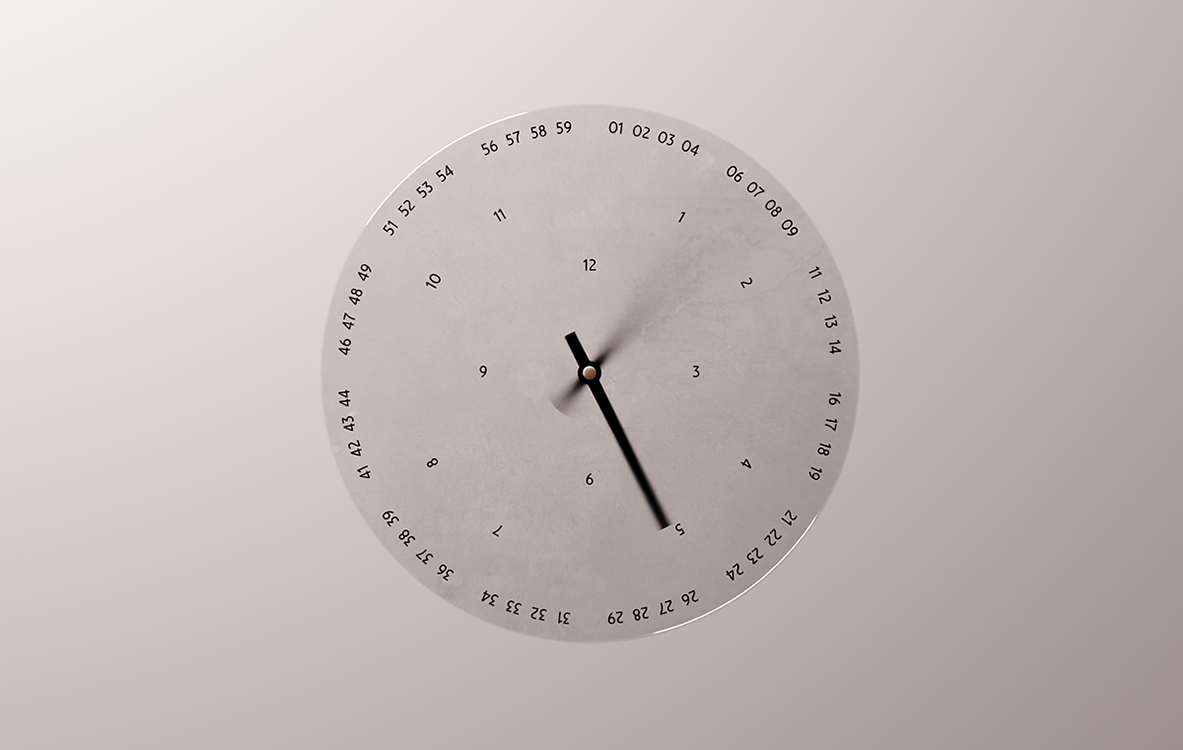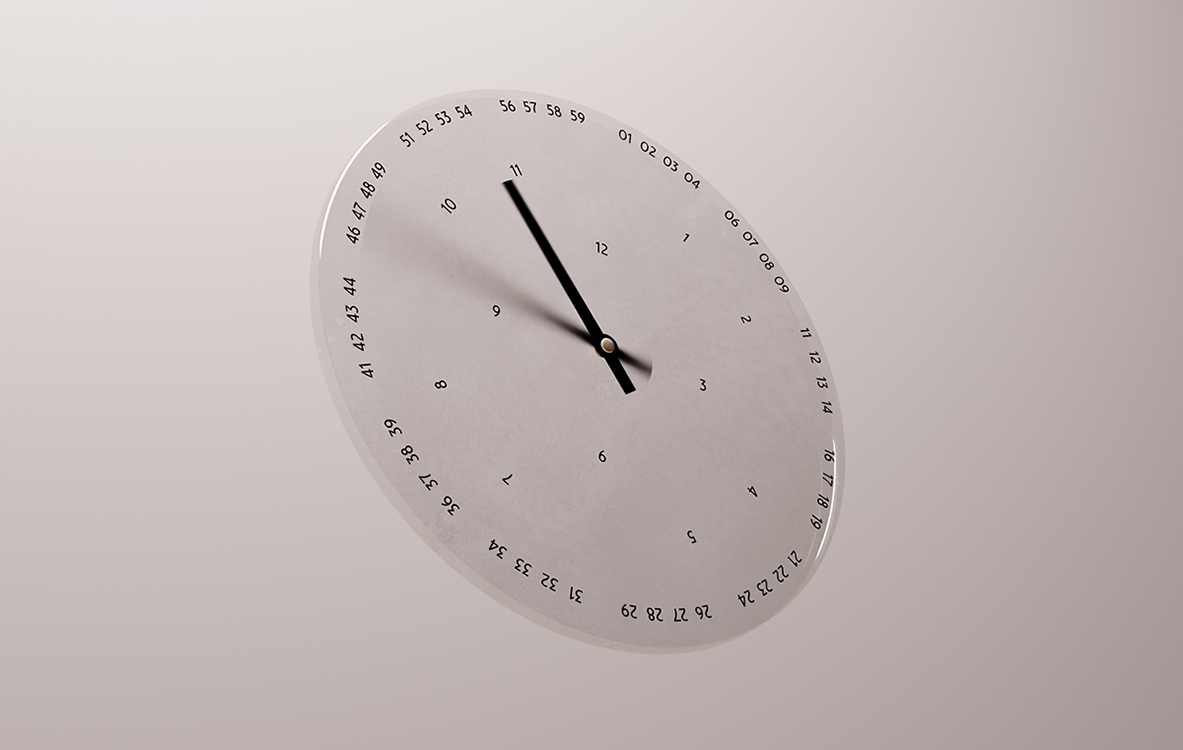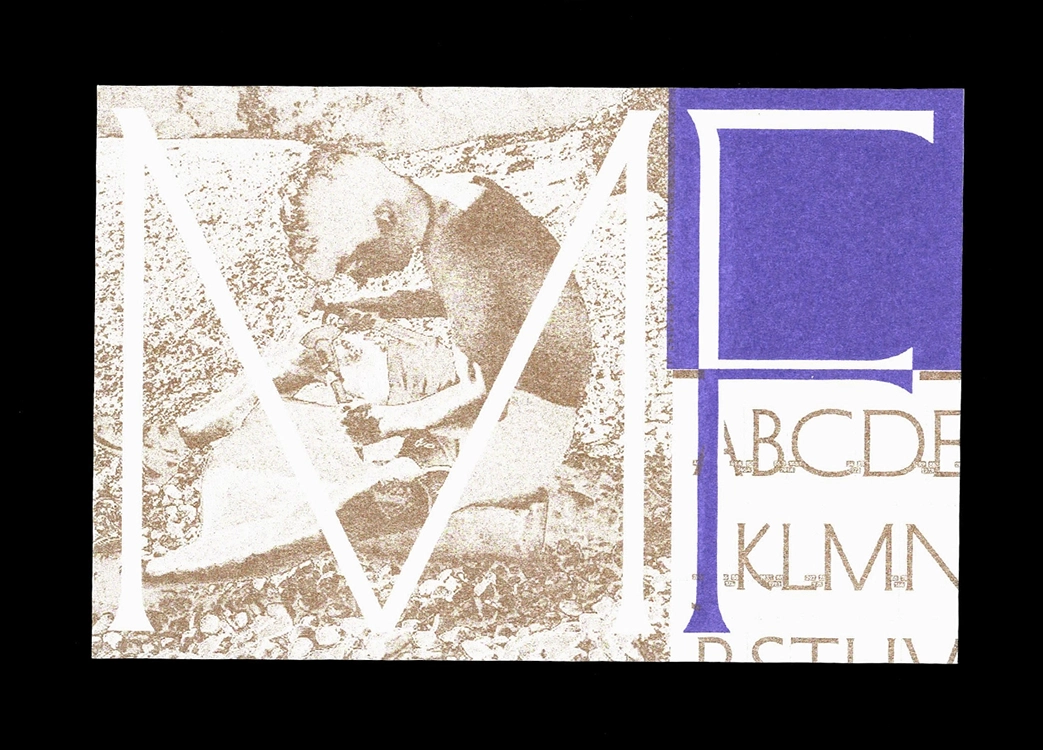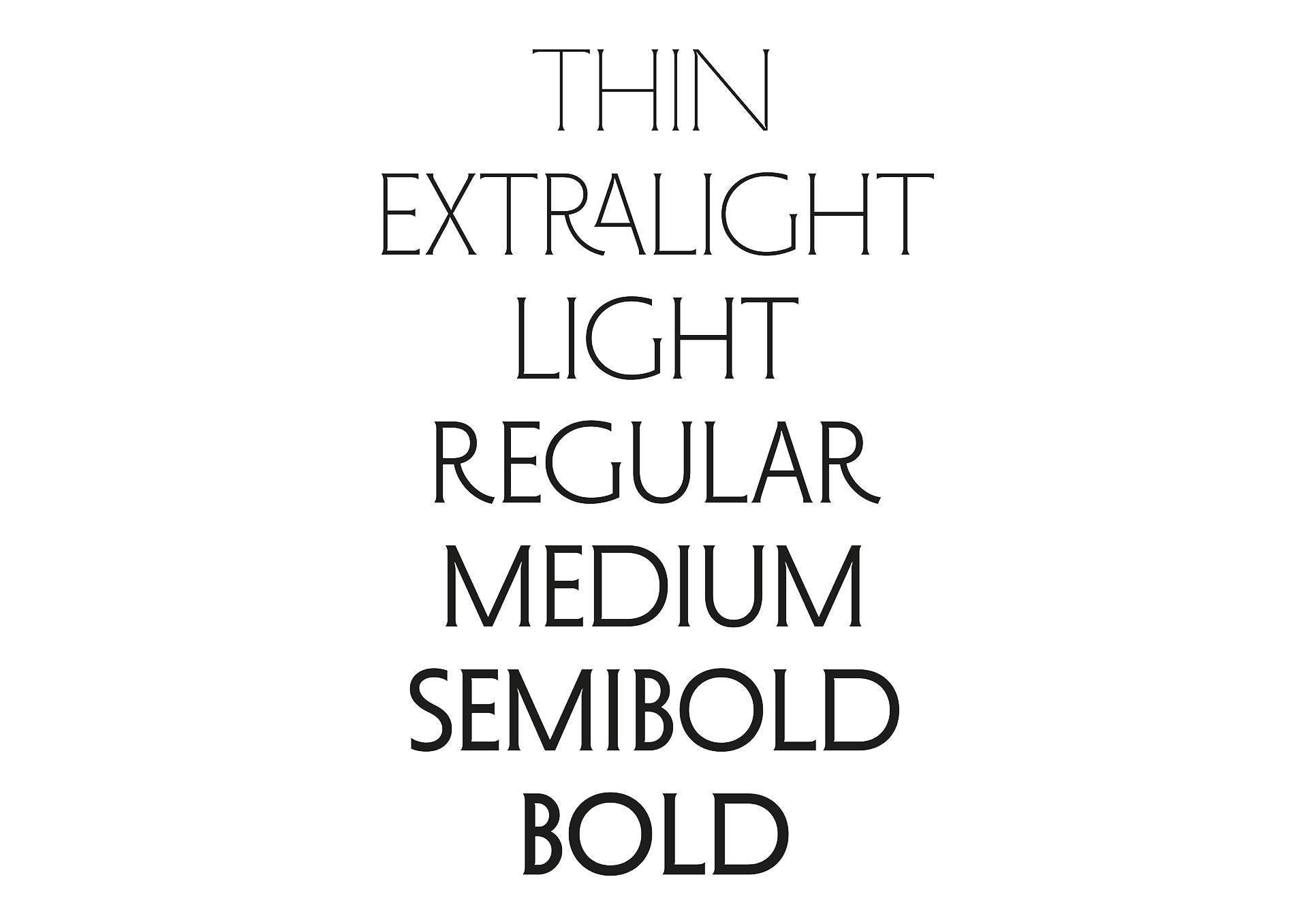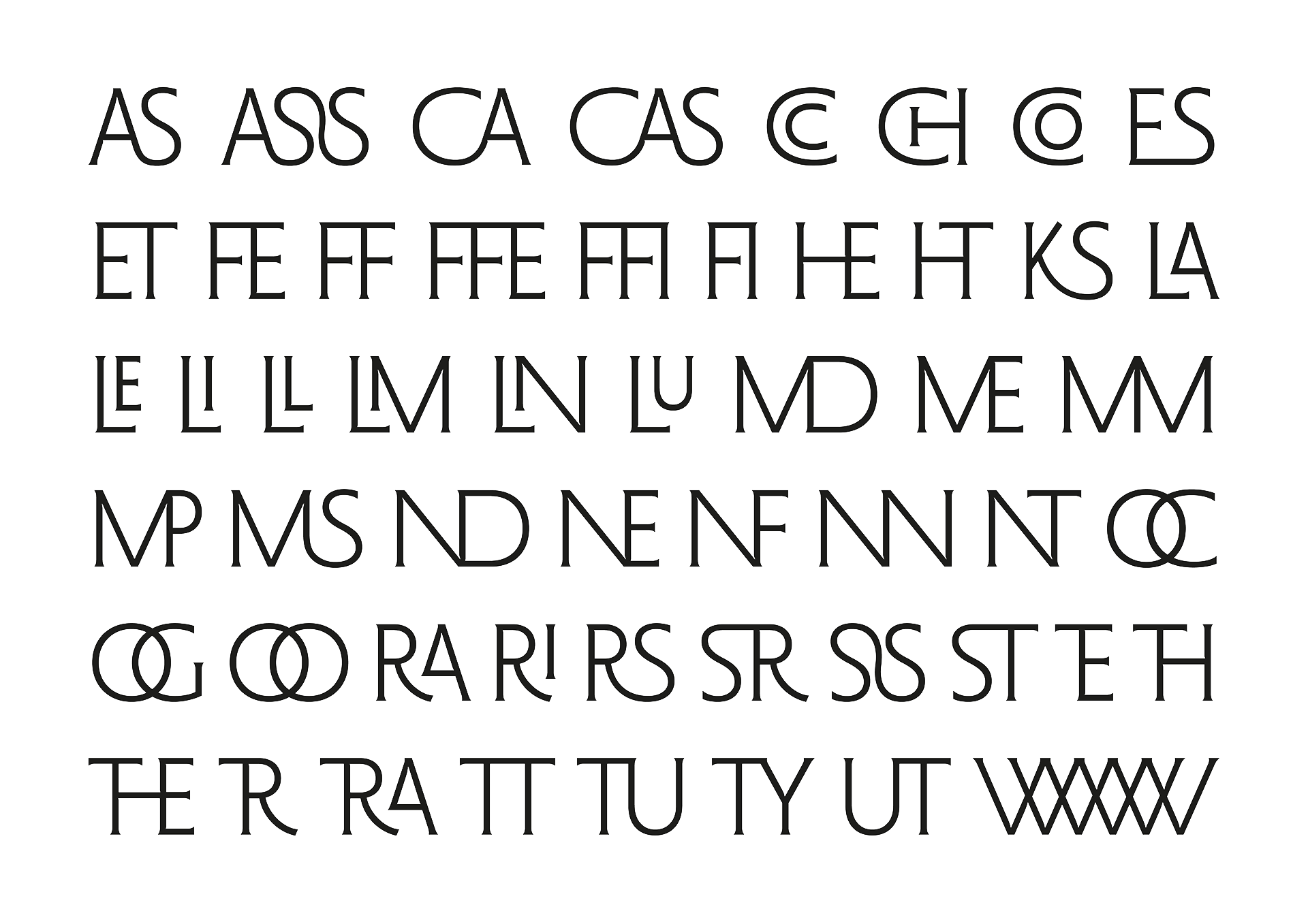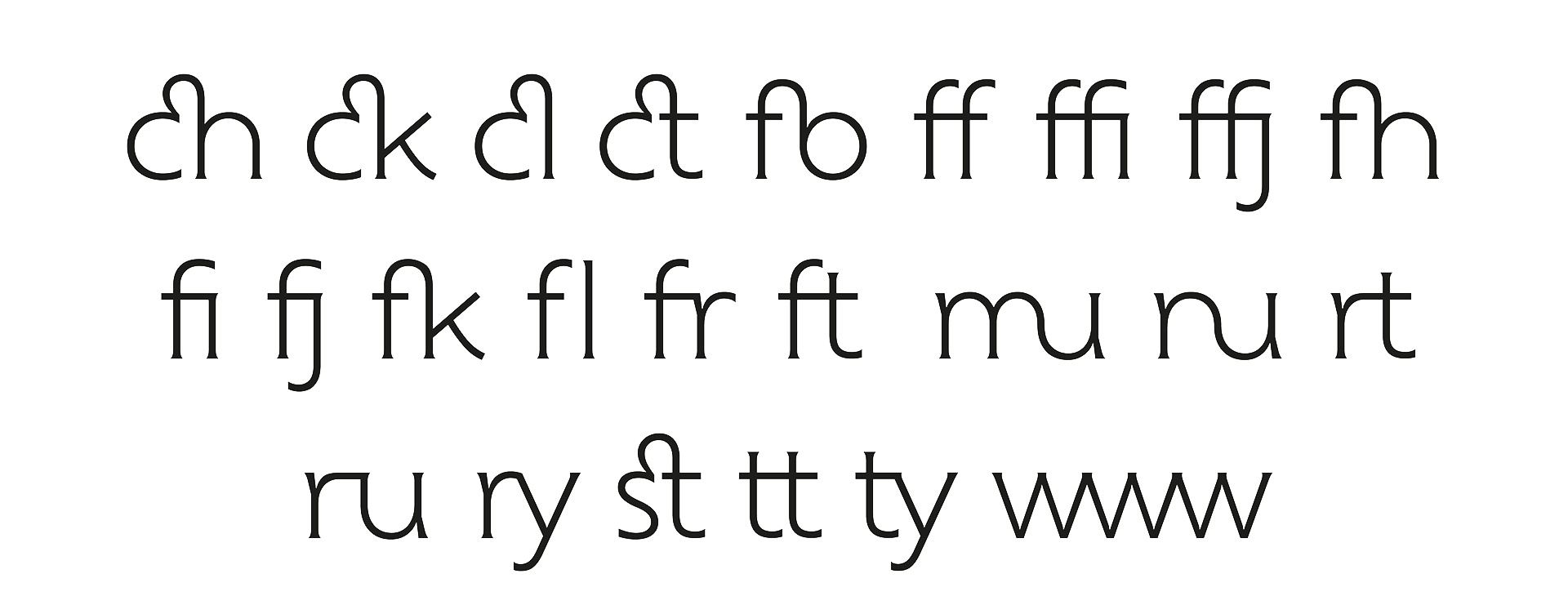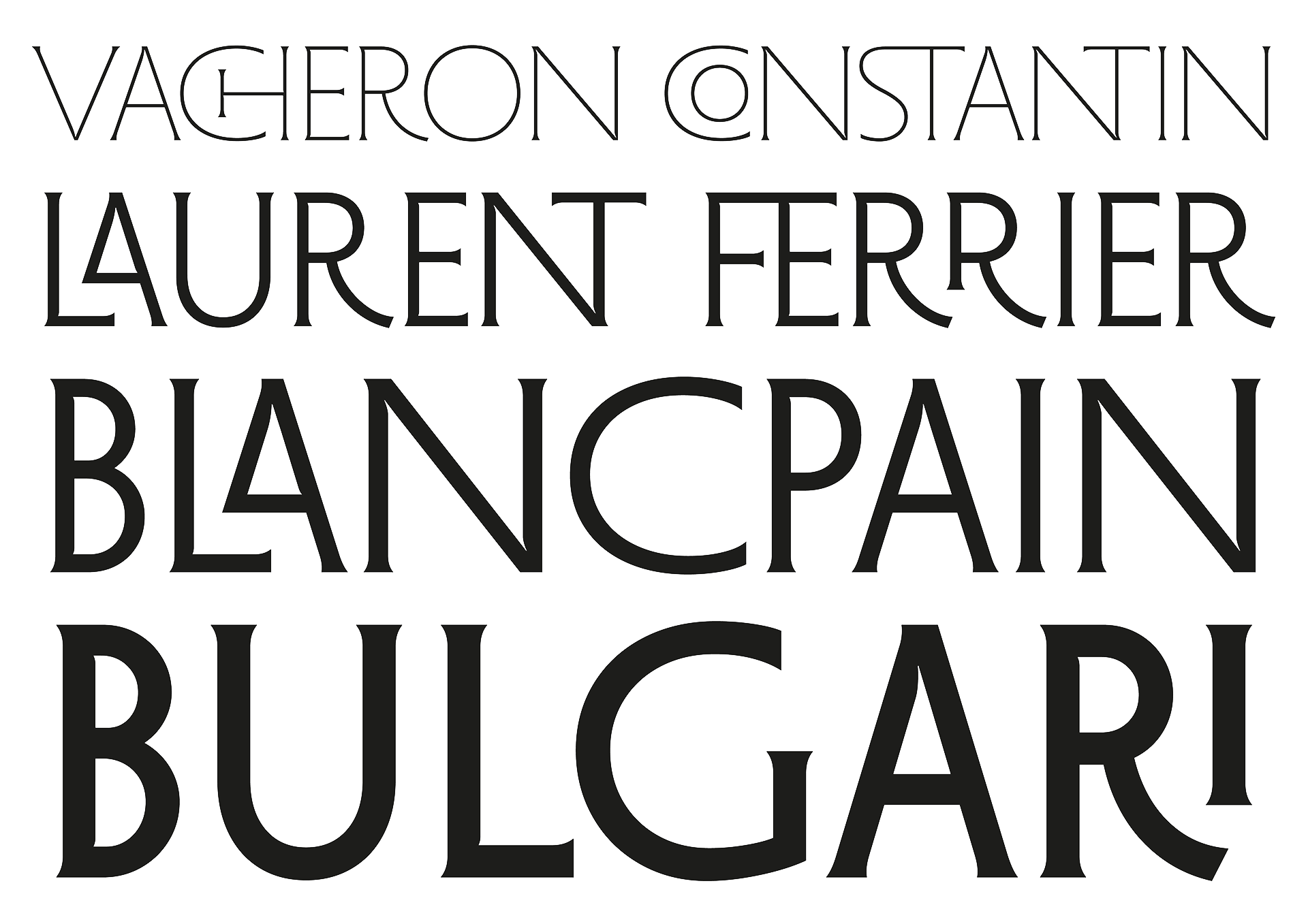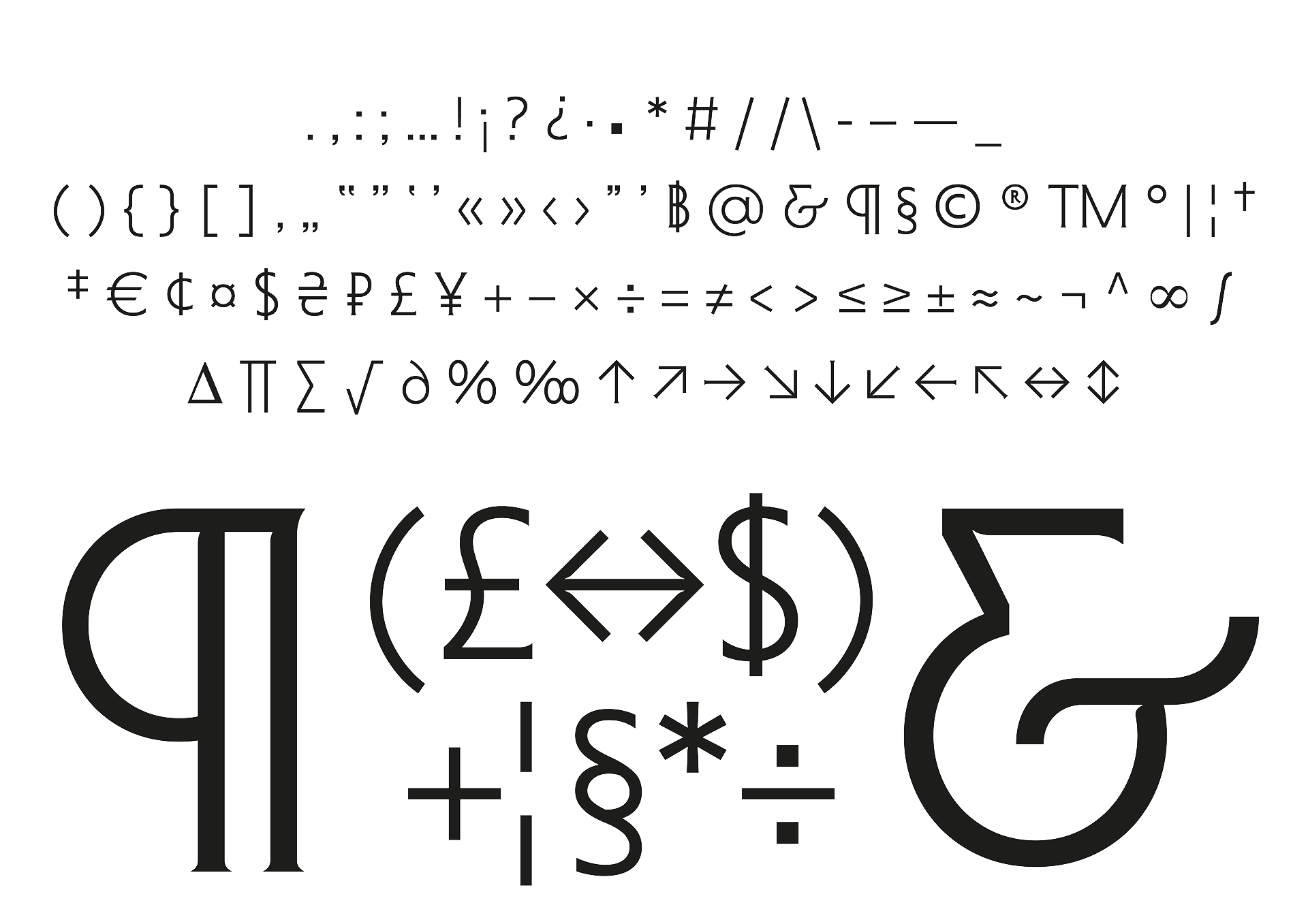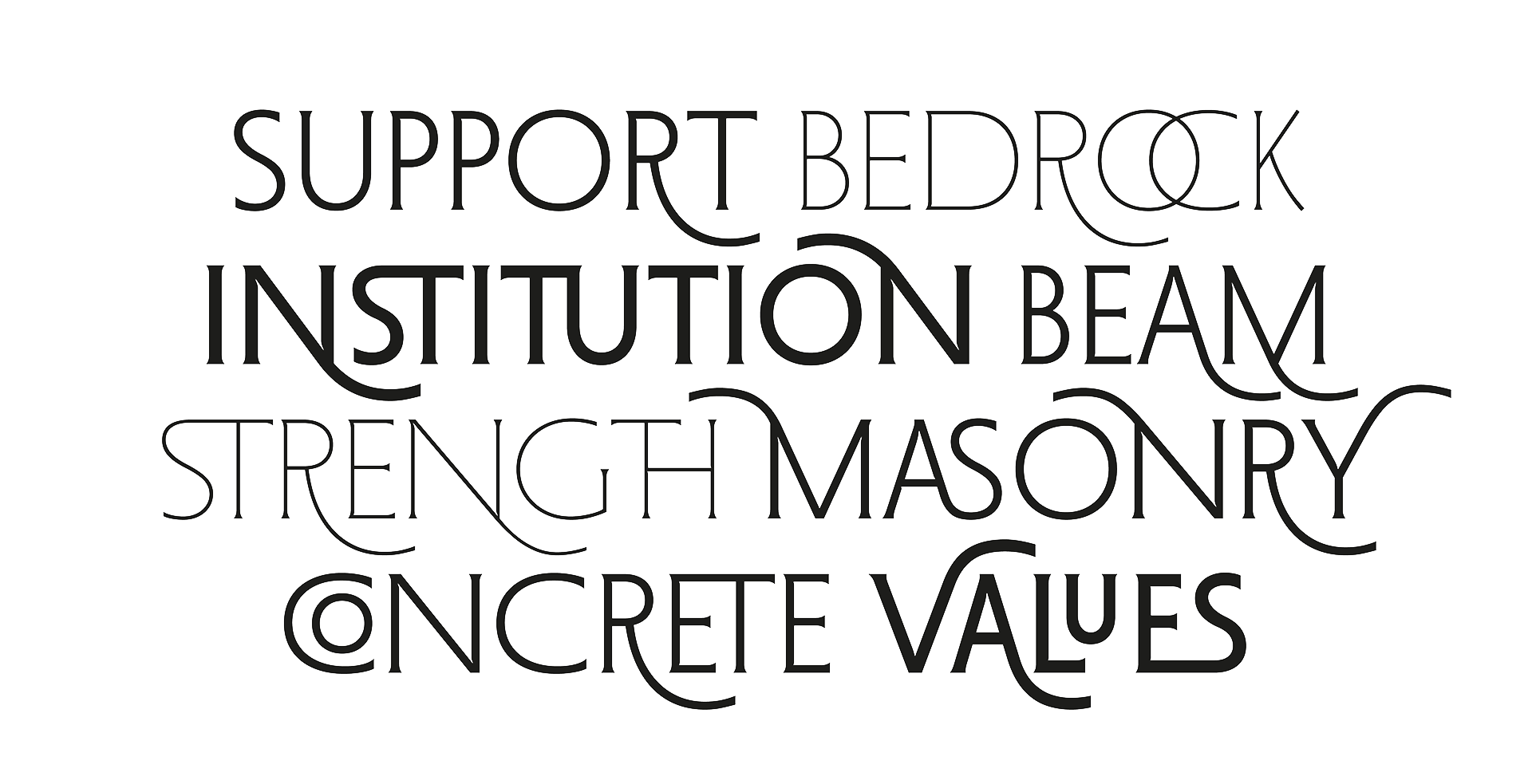
Fondation
A serif typeface steeped in the classical elegance of Roman proportions. This font's unique design marries the timeless grace of Roman letterforms in uppercase with the fluidity of circular structures in lowercase, resulting in a harmonious blend that bridges the gap between past and present. "Fondation" effortlessly weaves a contemporary narrative while honoring its historical lineage, creating a typographic landscape where tradition meets innovation with effortless grace.
MF Fondation typeface specimen showcasing styles from Thin to Bold, editorial layout. MF Fondation used in editorial-style composition, demonstrating typographic versatility. Weight progression of MF Fondation, from Thin to Bold, typographic contrast and rhythm. MF Fondation applied to luxury brand names, refined and contemporary serif typography. Punctuation and special characters from MF Fondation, complete editorial character set. Numerals and number styles in MF Fondation, precise and elegant typographic forms. Ligatures and stylistic alternates from MF Fondation, expressive serif detailing.